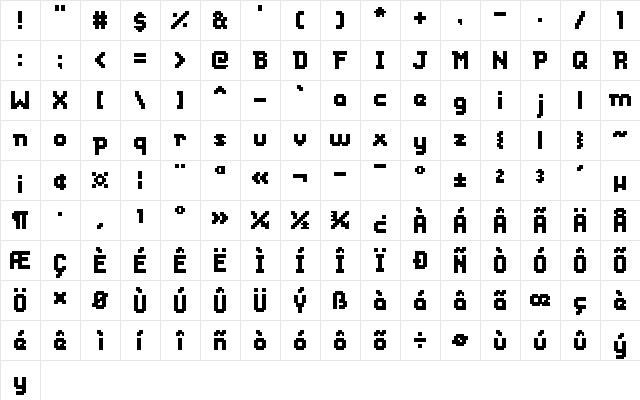
Messe Duesseldorf Regular
Design Context for Messe Duesseldorf Typeface
Messe Duesseldorf is a composed and adaptable typeface that performs quietly and consistently across a wide range of design contexts.